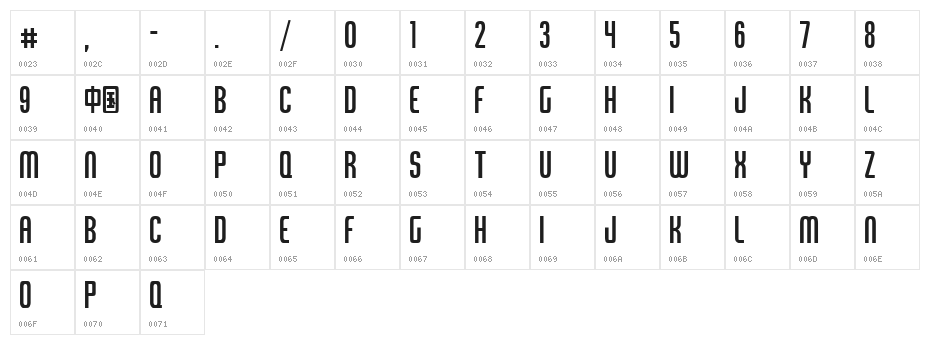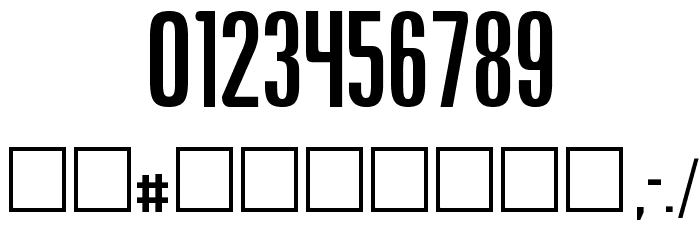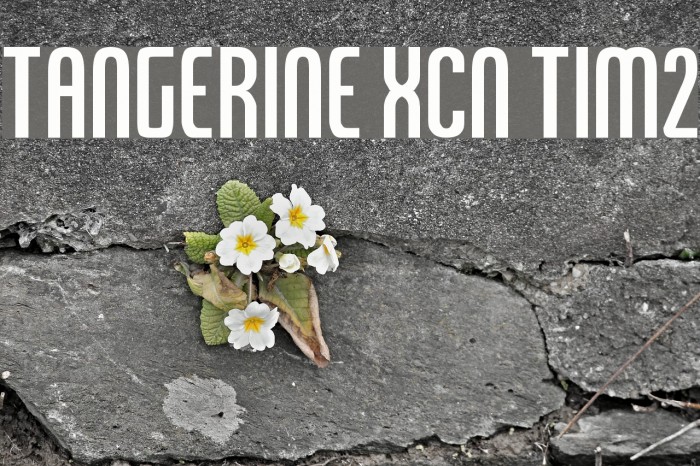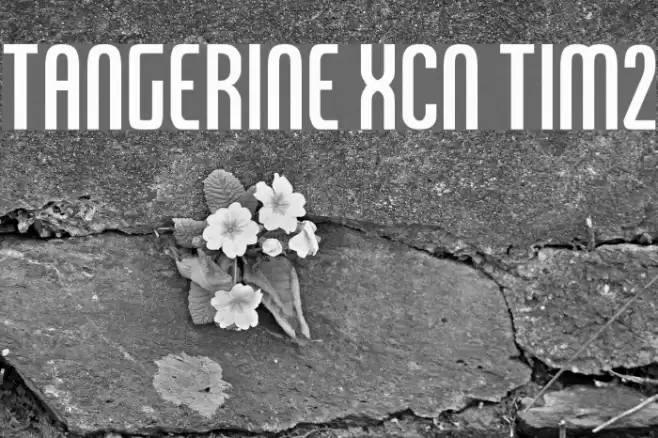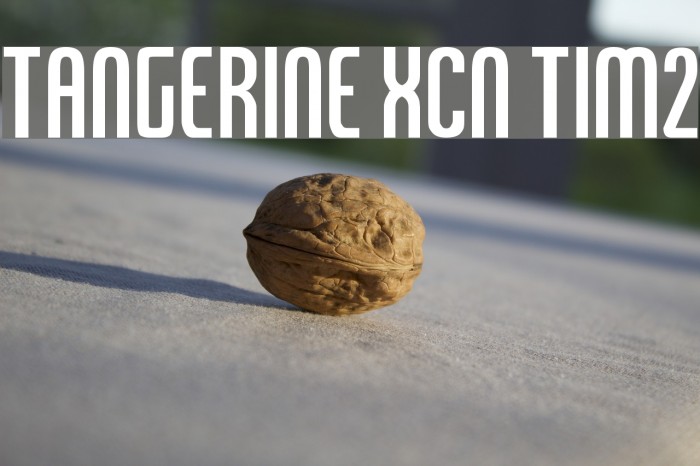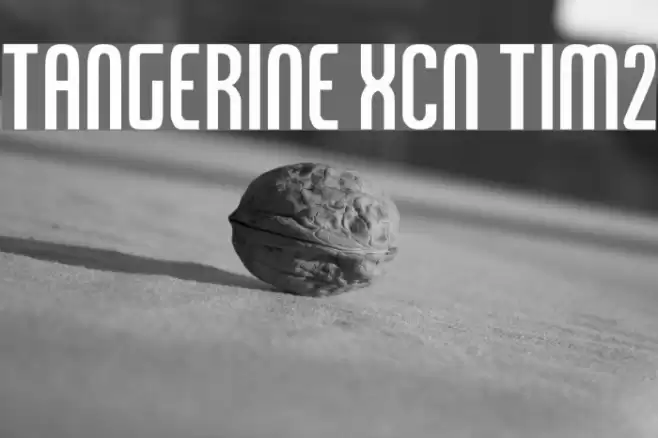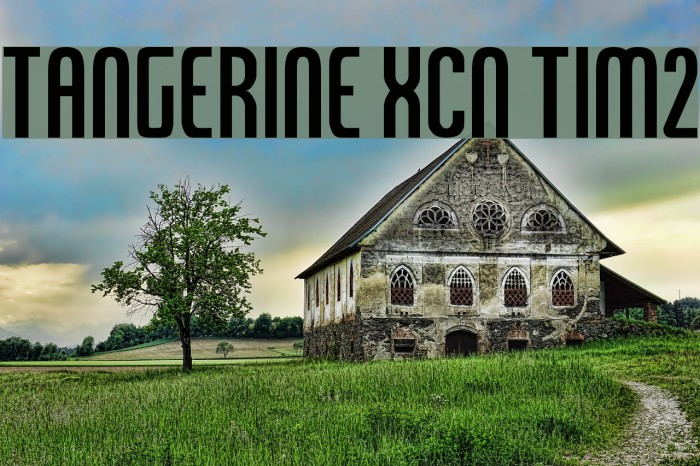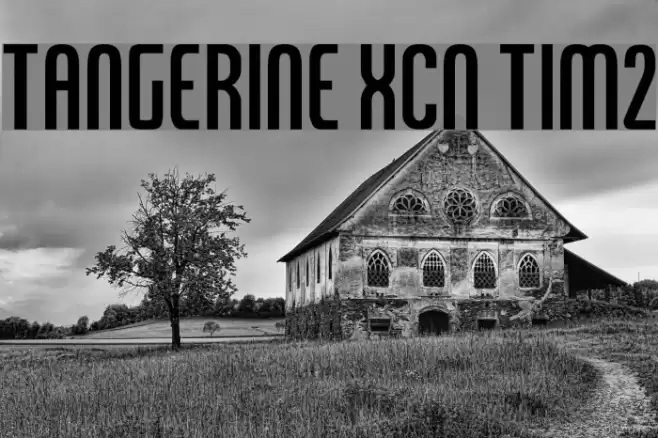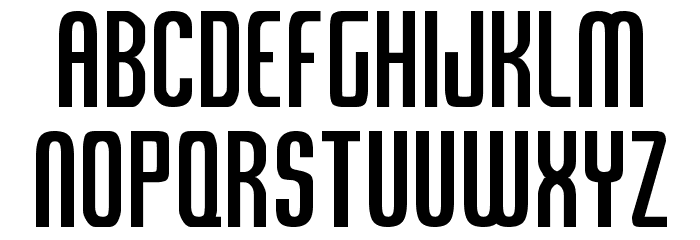
Tangerine XCn Tim2 Font
Tangerine XCn Tim2 Description
This font features a bold and condensed style, characterized by its tall, narrow letterforms and consistent stroke width. The uppercase letters are uniform in height, creating a strong and cohesive appearance. The design is modern and geometric, with a slight retro influence, making it suitable for impactful headlines and titles. The numerals are equally bold and maintain the same condensed structure, ensuring readability and visual harmony. The font's clean lines and lack of serifs contribute to its contemporary feel, while the rounded edges add a touch of softness to the overall design.